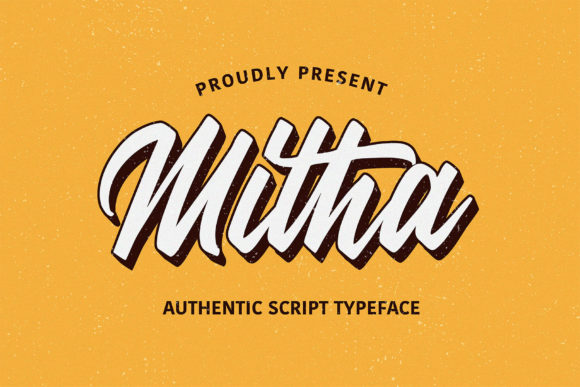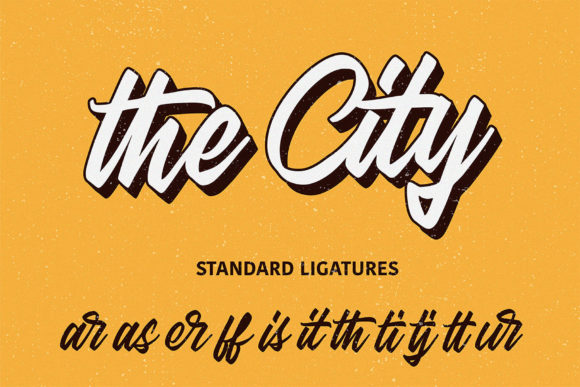
About Mitha Font
Mitha is an exquisite handwritten font, masterfully designed with a vintage style. It maintains its classy calligraphic influences while feeling contemporary and fresh. Fall in love with it and bring your projects to the highest levels!